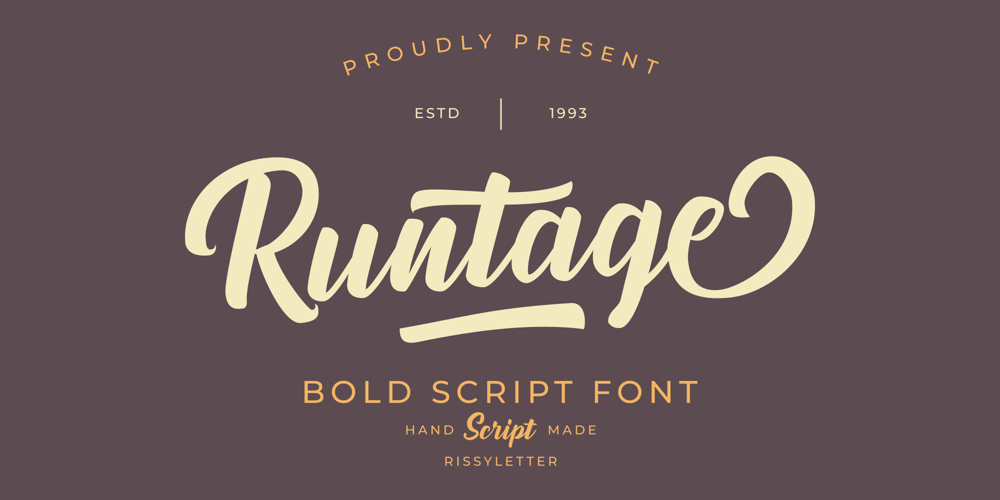
Runtage Font Family was designed by Nur Rohman Rizki and published by Riasyletter_Studio. Runtage contains 2 styles and family package options. Runtage font is a stylish and modern hand letter script font but can also be used for vintage projects. This font will look awesome and amazing in many ways to your latest project.perfect for various projects such as logos and branding, hand lettering, merchandise, advertisements, invitations, social media posts etcWhat’s Included :More than 280 of glyphs (include Uppercase, Lowercase, Numerals & Punctuations, Ligature, Stylistic, Swashes)Support multilingual supportWorks on PC & MacSimple installationsAccessible in the Adobe Illustrator, Adobe Photoshop, Adobe InDesign, even work on Microsoft Word.PUA Encoded Characters (fully accessible without additional design software)